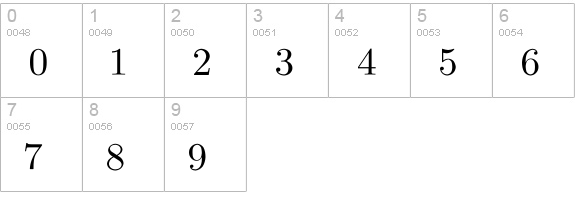
CM_Roman Regular Font Details
CM_Roman Regular is the standard, neutral variant in the CM_Roman typeface family \xE2\x80\x94 well suited to general body text, paragraphs, and standard typographic work.